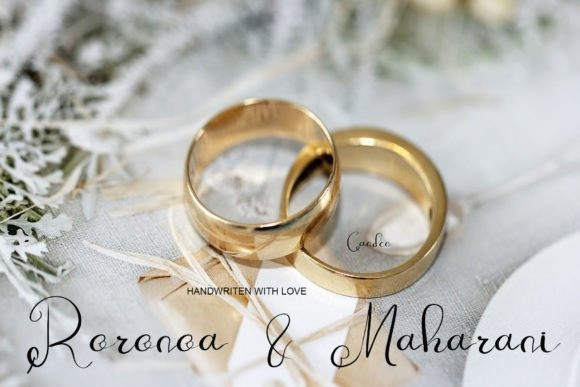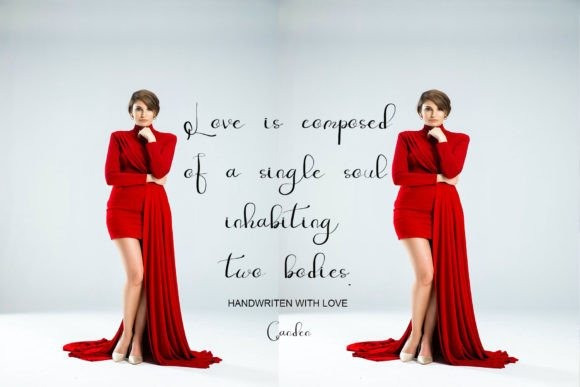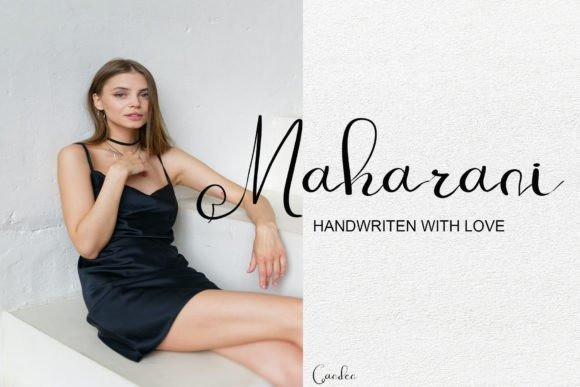
Maharani Font
Maharani Script Font is a beautiful and simple handwritten font that will look great on websites, wedding invitations, business cards, signatures, advertisements, and many more. Cool and stylish, it will make a great asset to your fonts library!